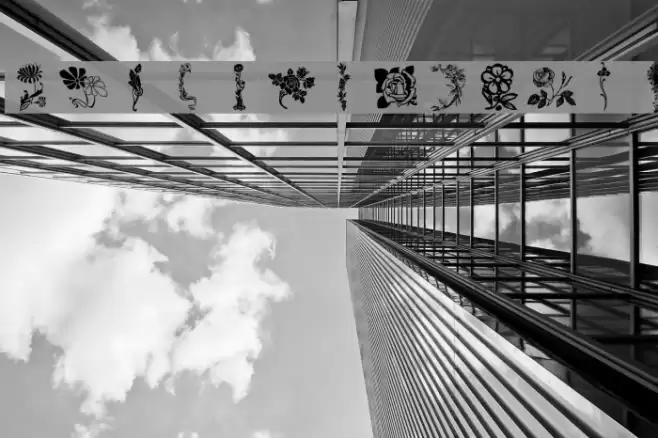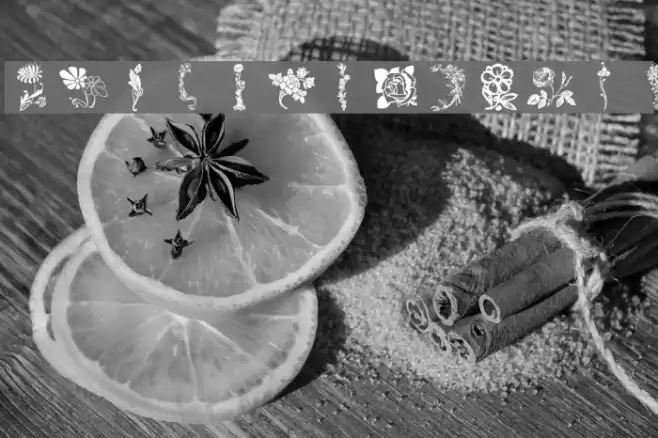
lpflowers Font
lpflowers Description
This decorative font features intricate floral designs that replace traditional letterforms. Each character is uniquely crafted with detailed floral elements, creating a visually rich and ornate appearance. The font is highly stylized, with each letter incorporating various floral motifs such as petals, leaves, and vines. The overall design is reminiscent of classic botanical illustrations, offering a blend of elegance and artistic flair. This font is ideal for projects that require a touch of nature-inspired beauty and sophistication.
A decorative font with intricate floral designs replacing traditional letterforms from Dingbats fonts.
- Proposed Projects: Ideal for wedding invitations, greeting cards, botanical-themed branding, and decorative posters.
- Use Case: Logos, Headlines, Decorative text